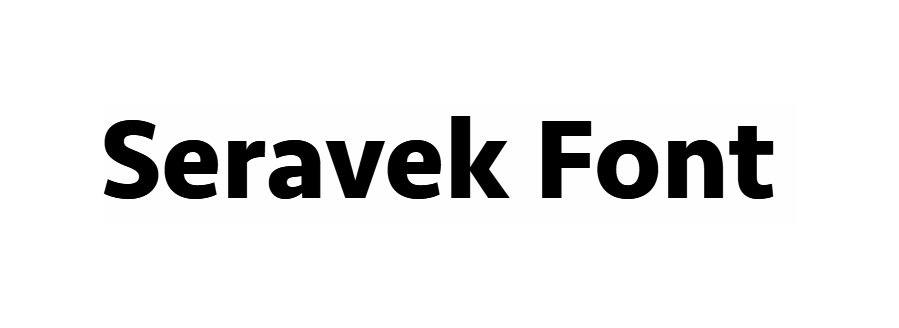
Seravek Font
Seravek is a sans serif font. Its clean letters skip the little "feet" (serifs) of traditional type, so it looks modern and reads well on screens. It's a free download, and you can try it with your own text in the preview above first.
What You Can Type With Seravek
You get every letter from A to Z in both cases and all the numbers from 0 to 9, which means Seravek can handle full sentences, dates and prices. Common punctuation such as &, !, ? and @ is included as well. It also has the accented letters you need for Spanish, French, German, Portuguese and Italian.
Where Seravek Works Best
Think of Seravek for websites, app screens and clean logos. It works for headings and body text alike. If the download has several weights, use a heavier one for titles and a lighter one for paragraphs.
Does Seravek support accented letters?
Yes. Seravek includes the accented letters needed for Spanish, French, German, Portuguese and Italian, so it works for more than just English.